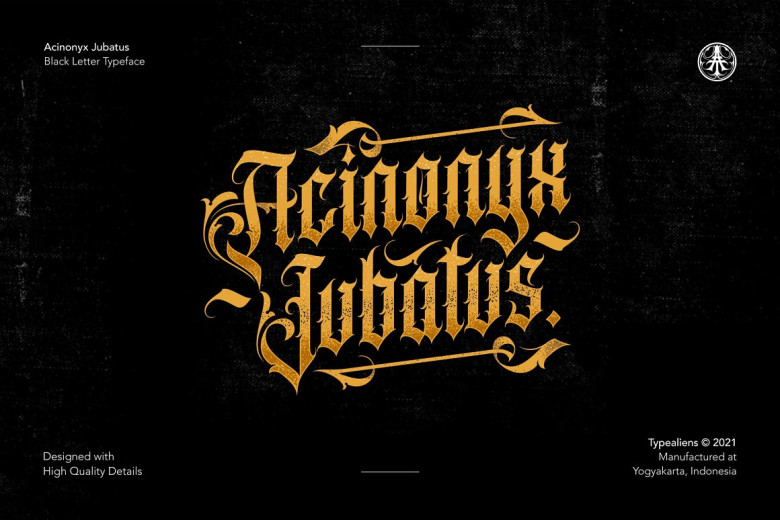
Acinonyx Jubatus Font
Acinonyx Jubatus is a modern Blackletter Font with a vintage touch, suitable for tattoo logos and lettering designs. It’s not hard to match other Blackletter fonts with this font, which has its own special ornamental style.
Acinonyx Jubatus Blackletter Font